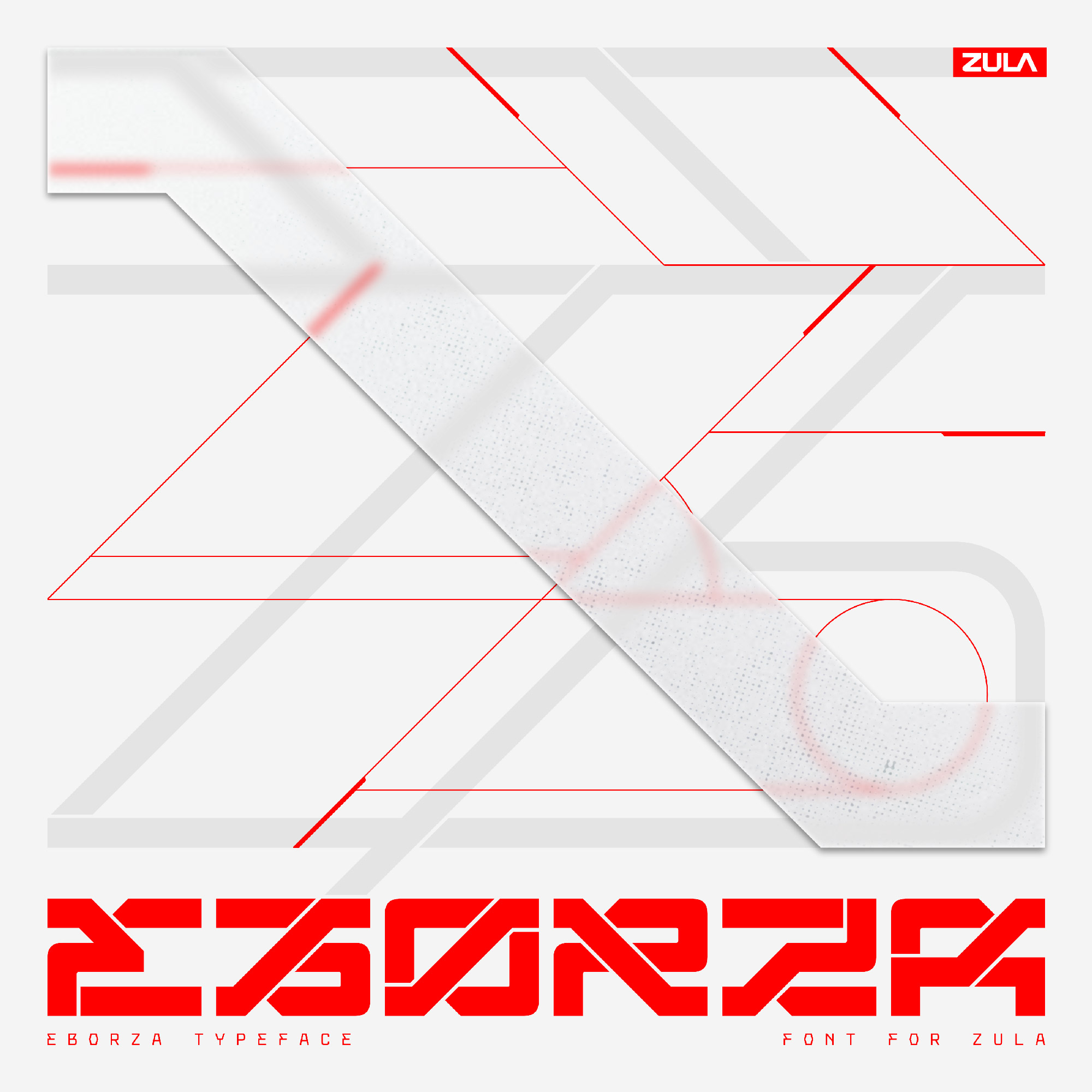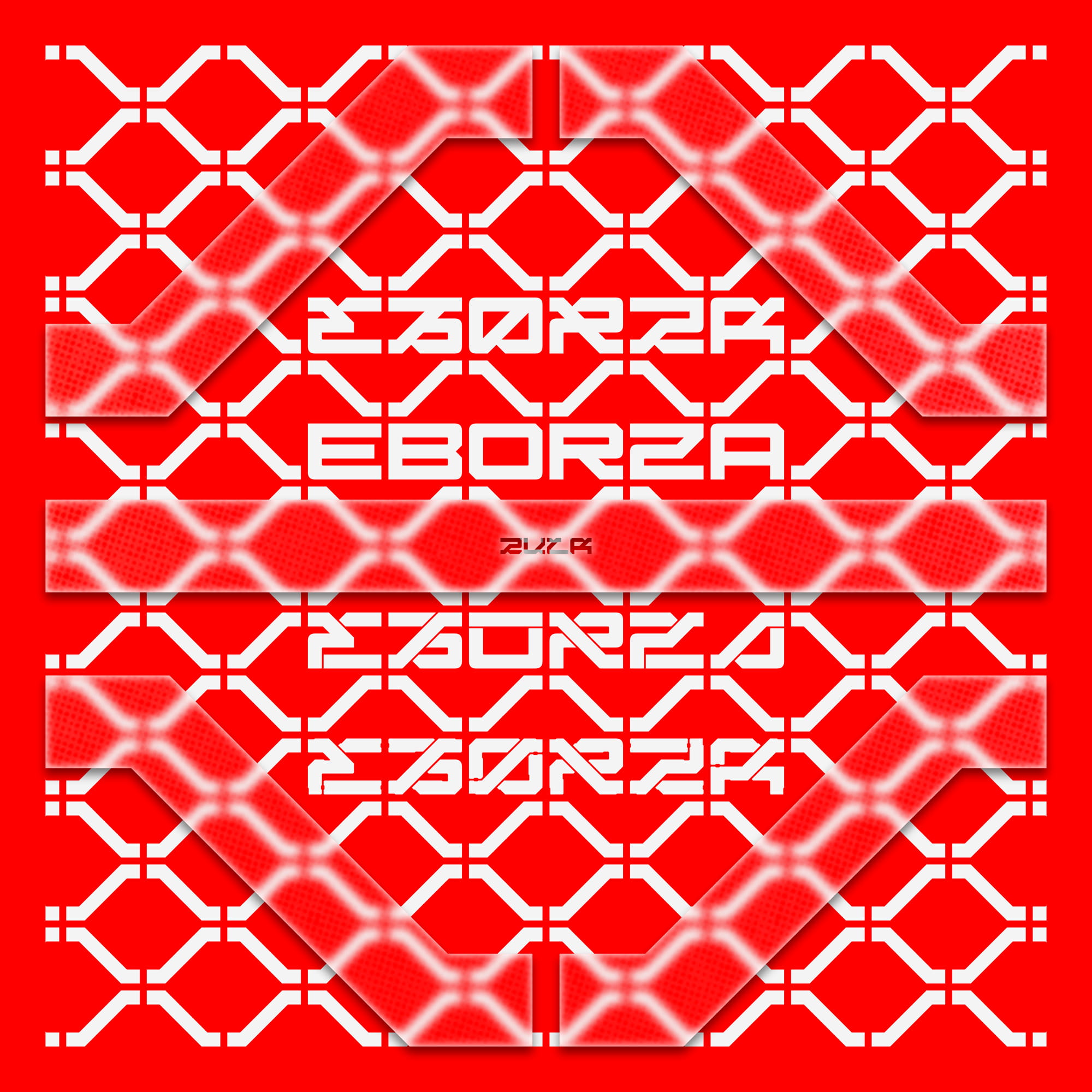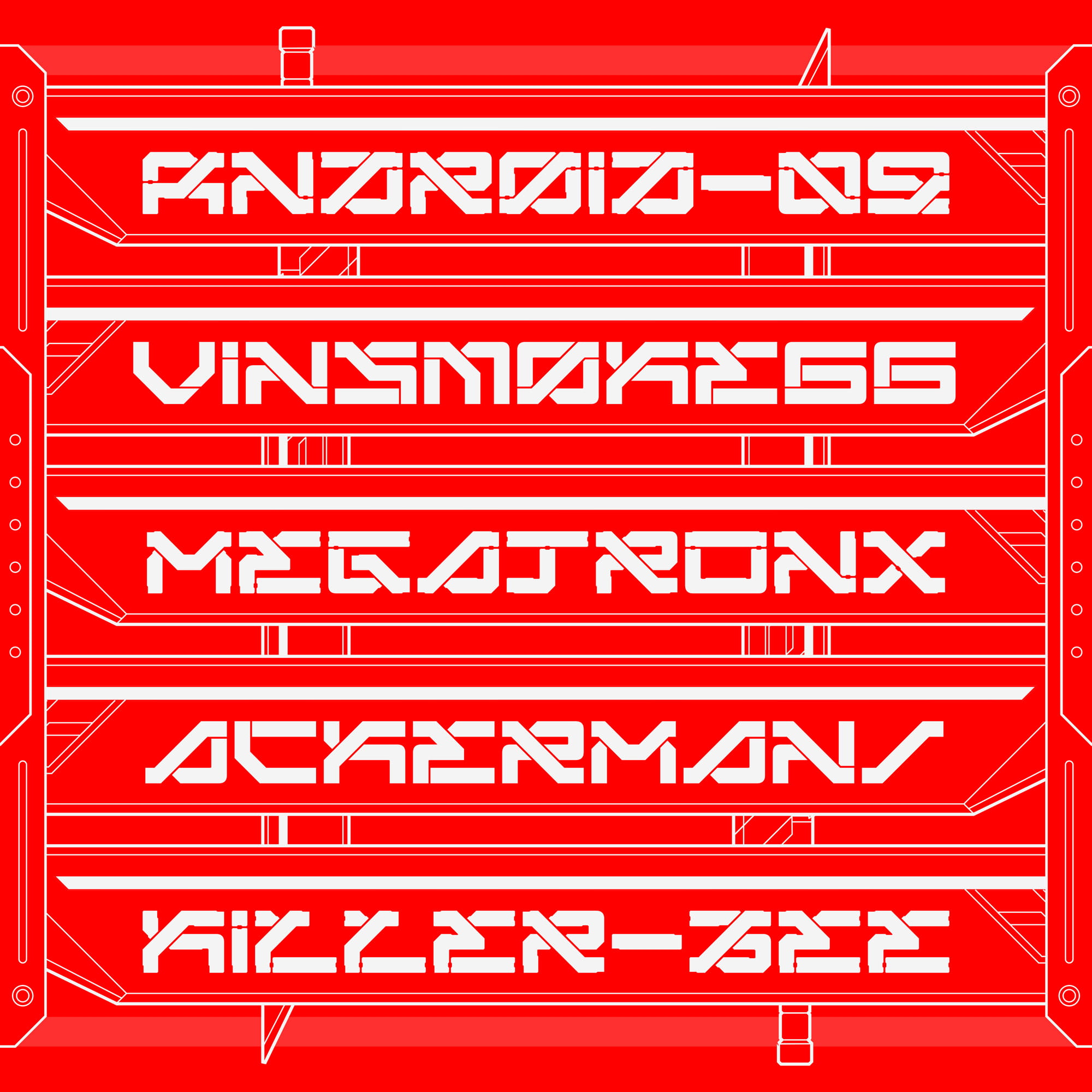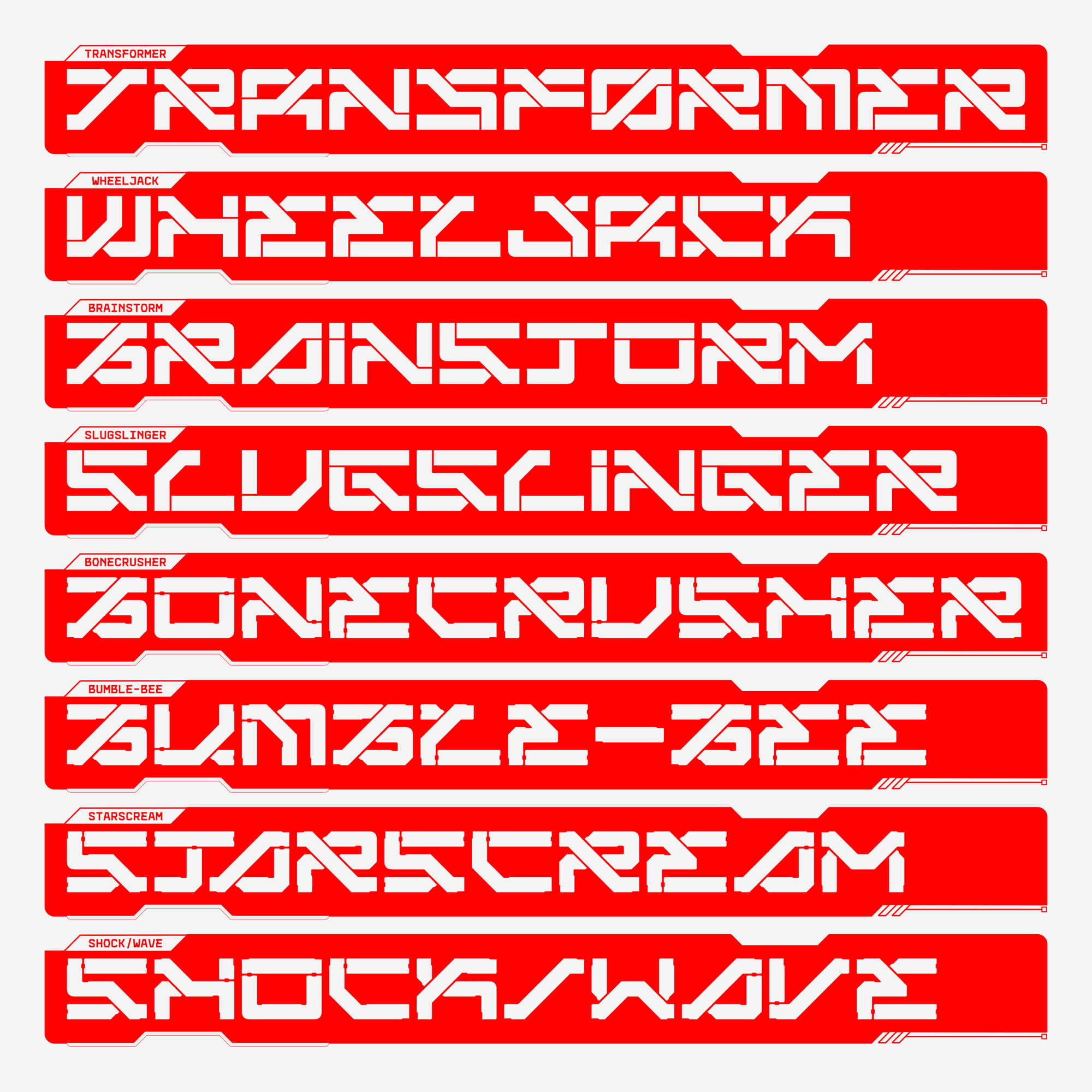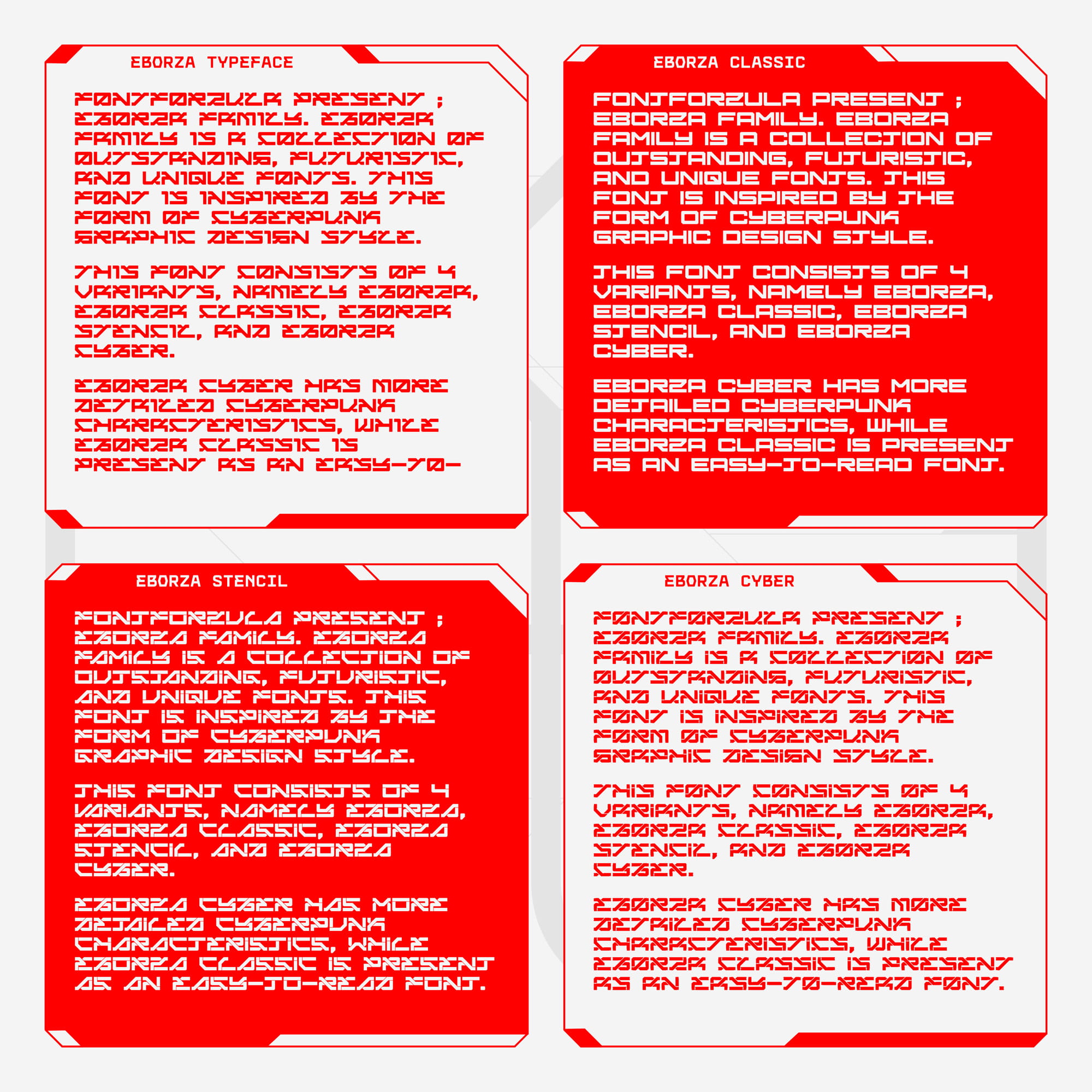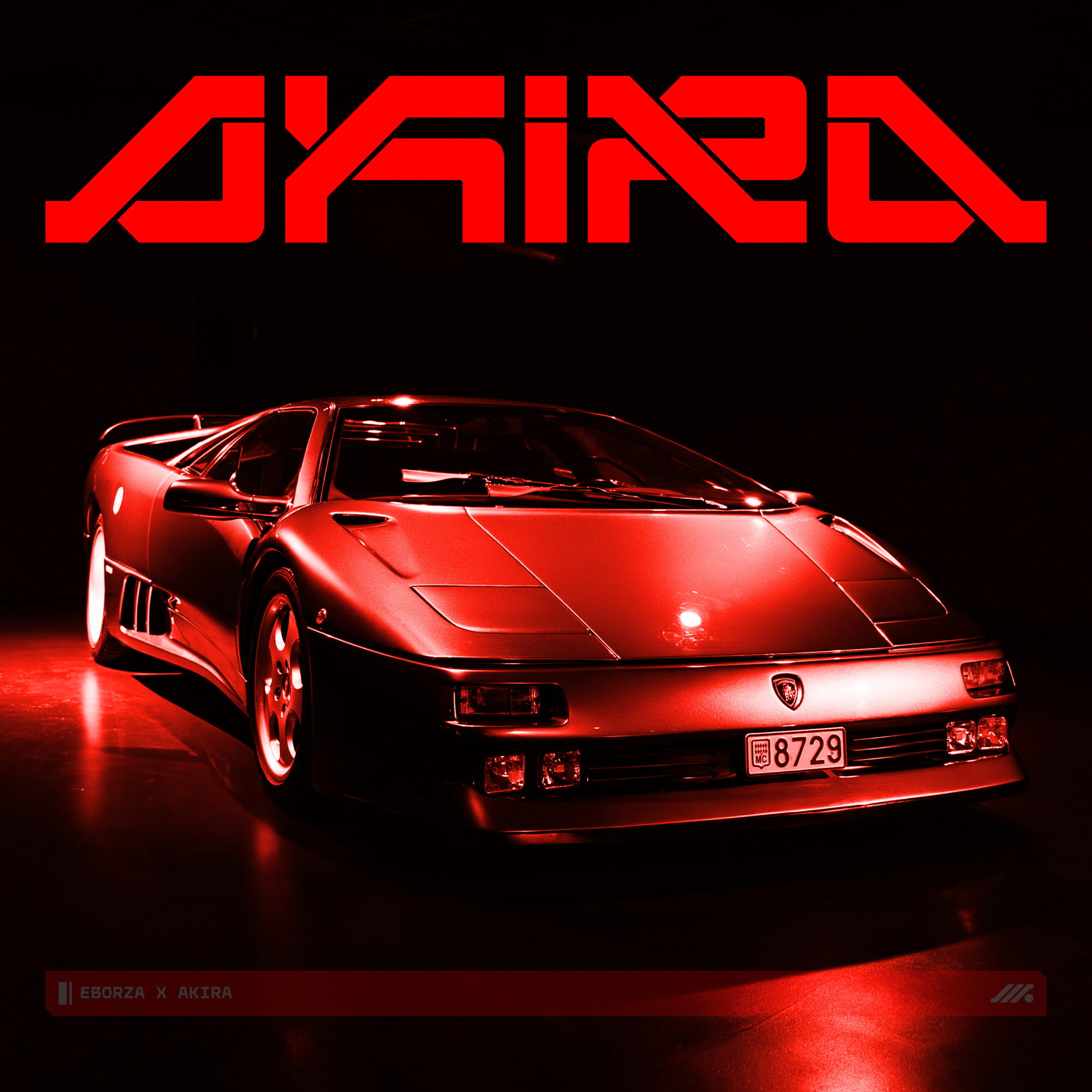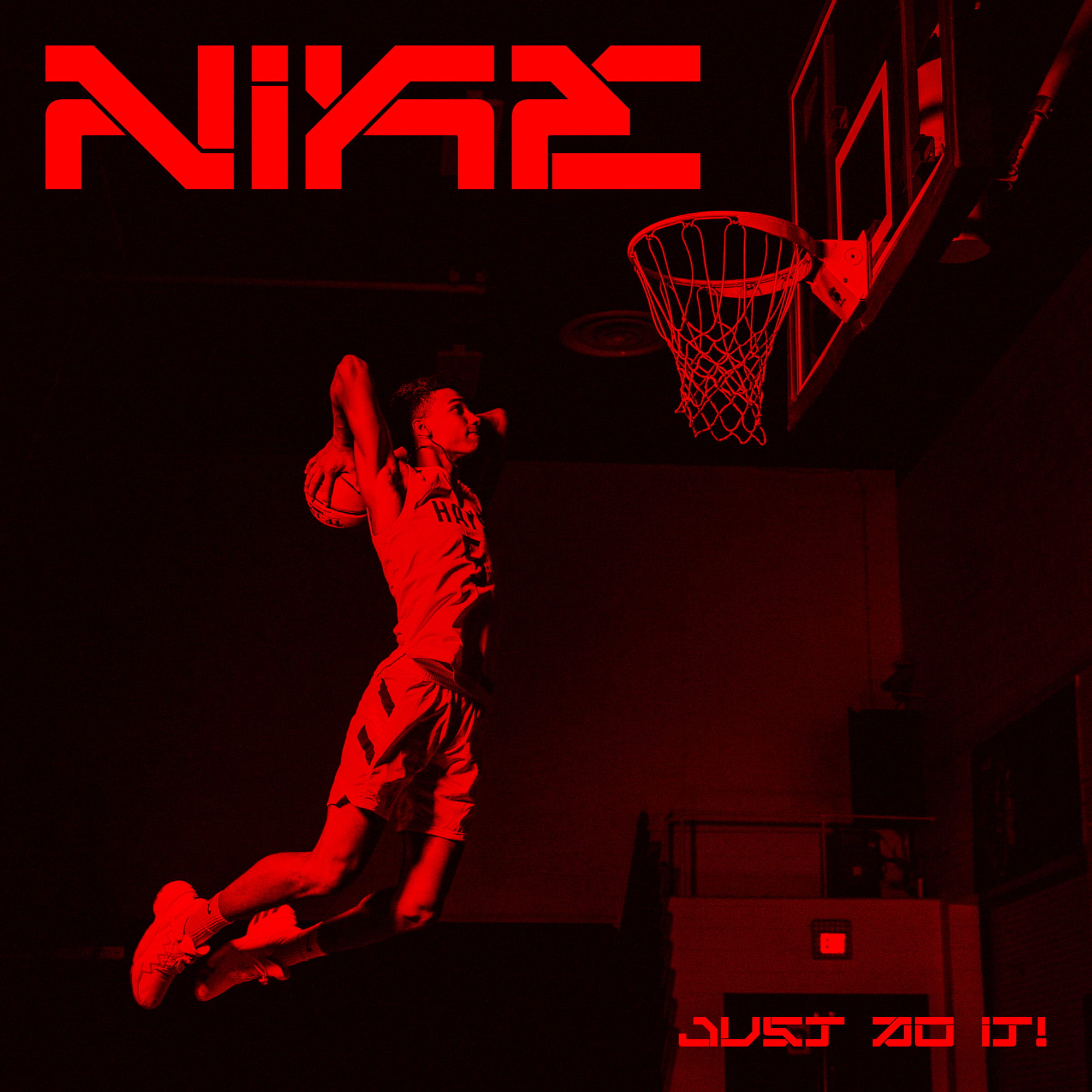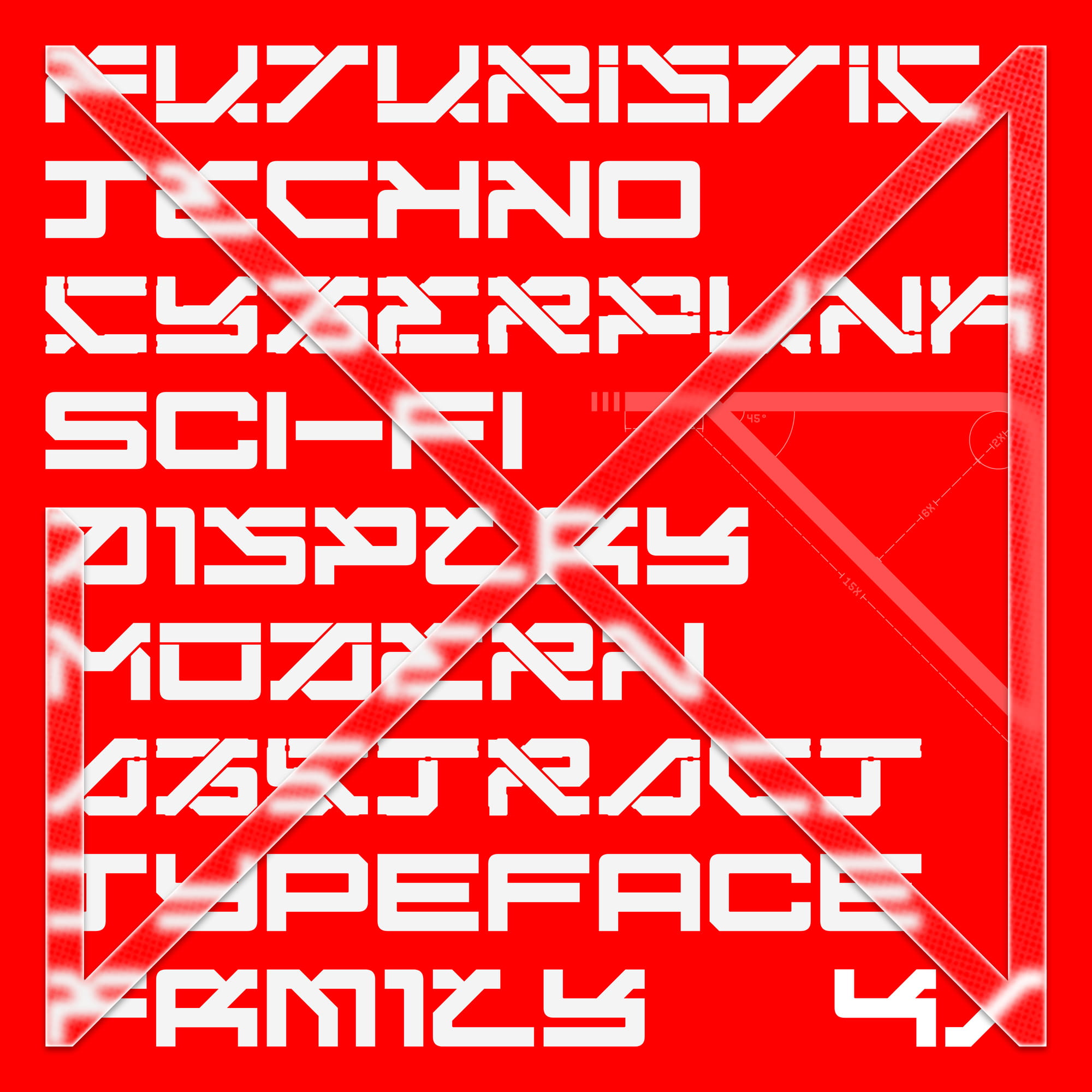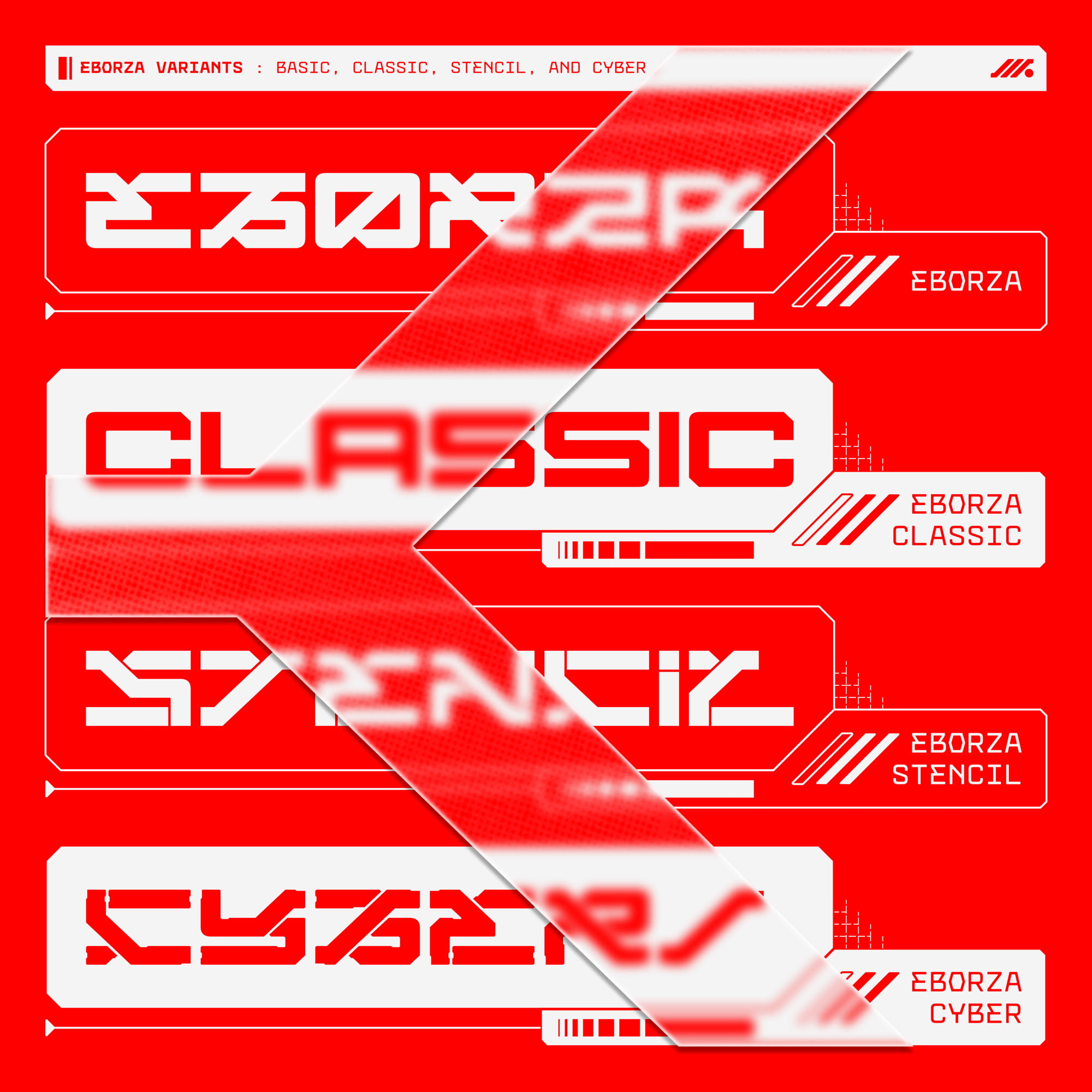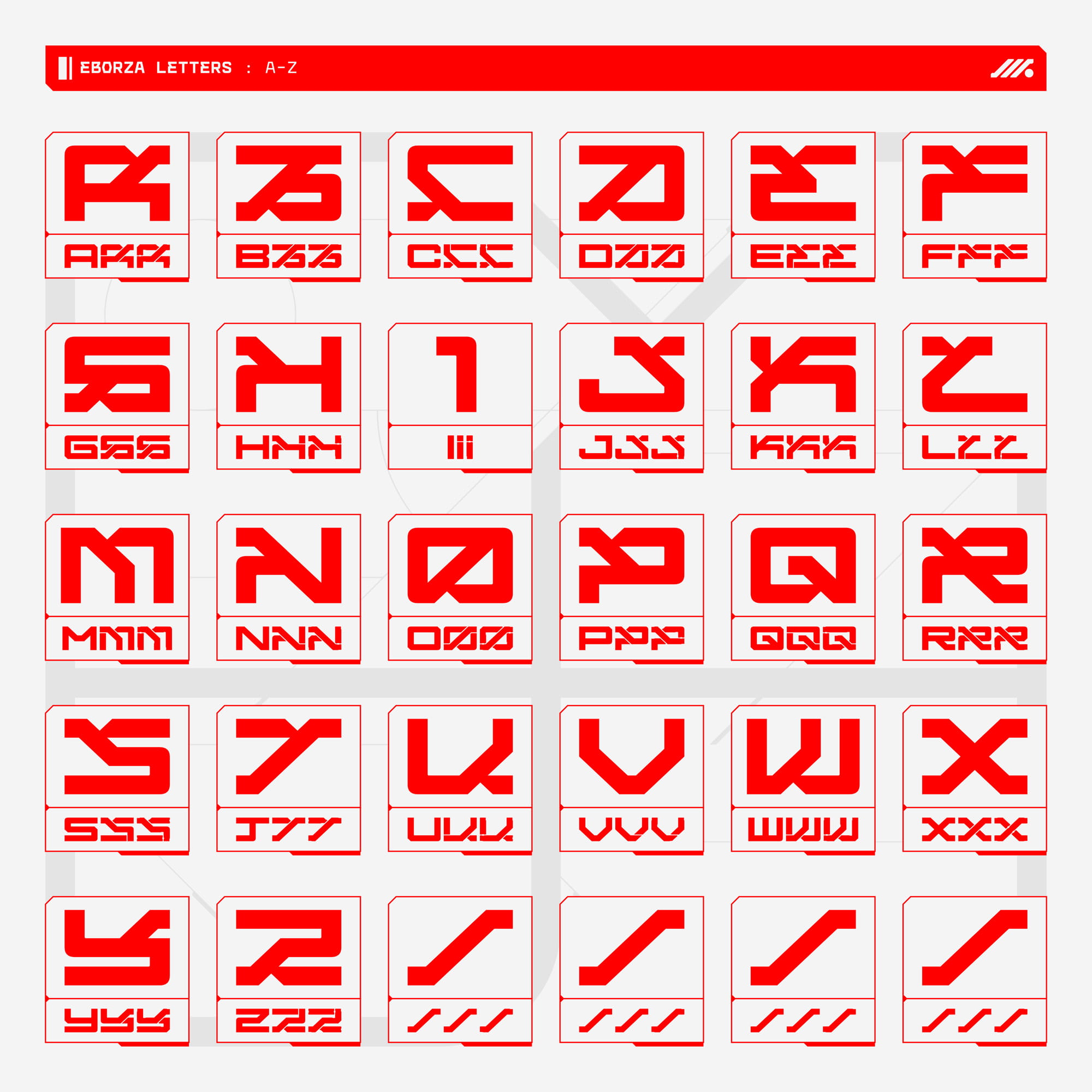
EBORZA FAMILY is a collection of outstanding, futuristic, and unique font. This font family is inspired by the form of cyberpunk graphic design style. This font family consists of 4 variants, namely EBORZA, EBORZA CLASSIC, EBORZA STENCIL, AND EBORZA CYBER.